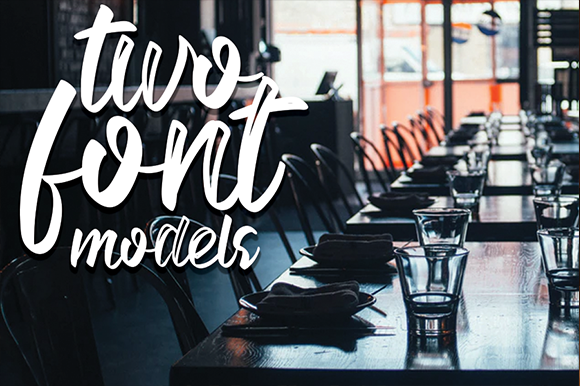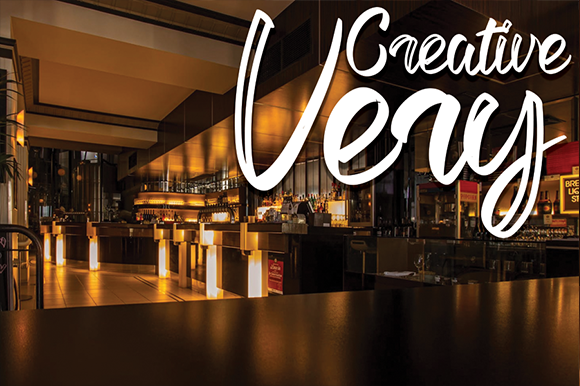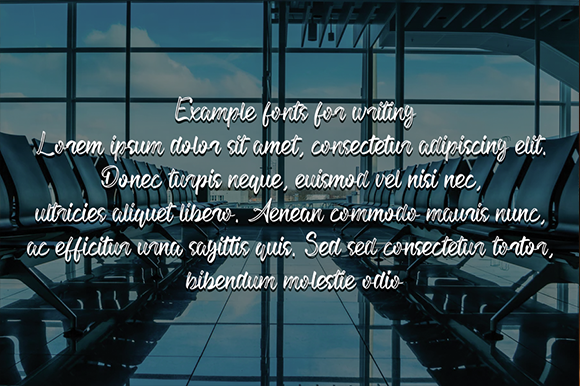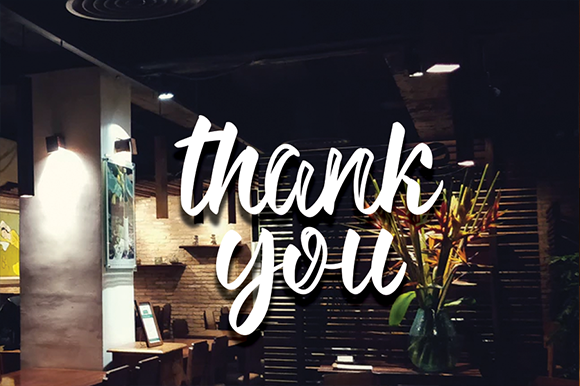
Gunago Font
About Gunago Font
Gunago duo is a match made in heaven. This handwritten font is the perfect fit for all of your logos, branding, social media, and crafty DIY projects.